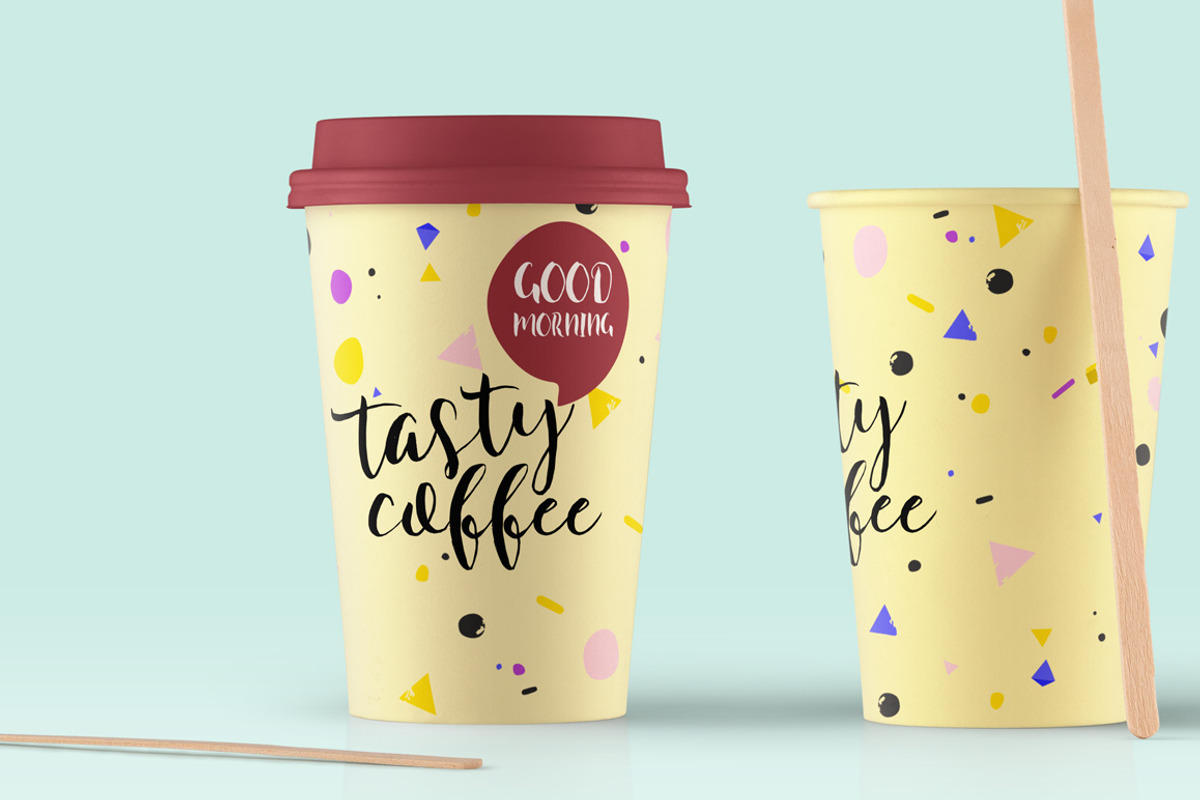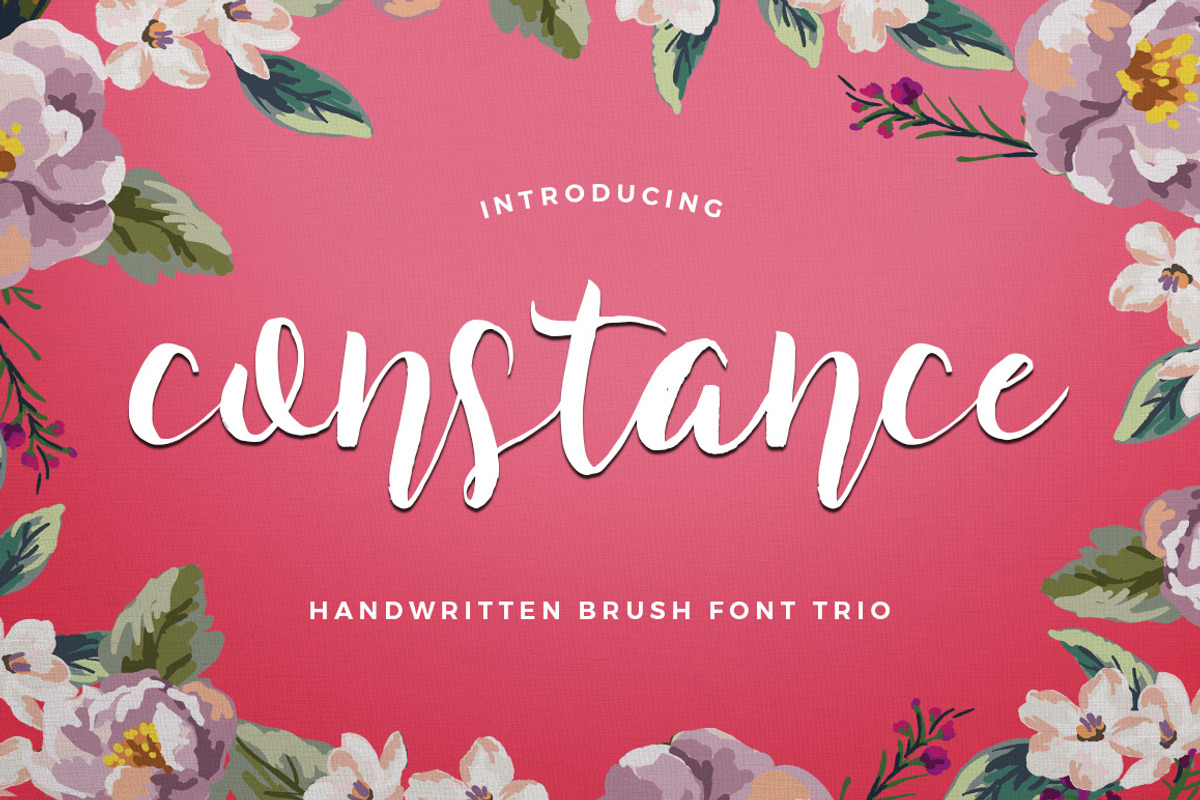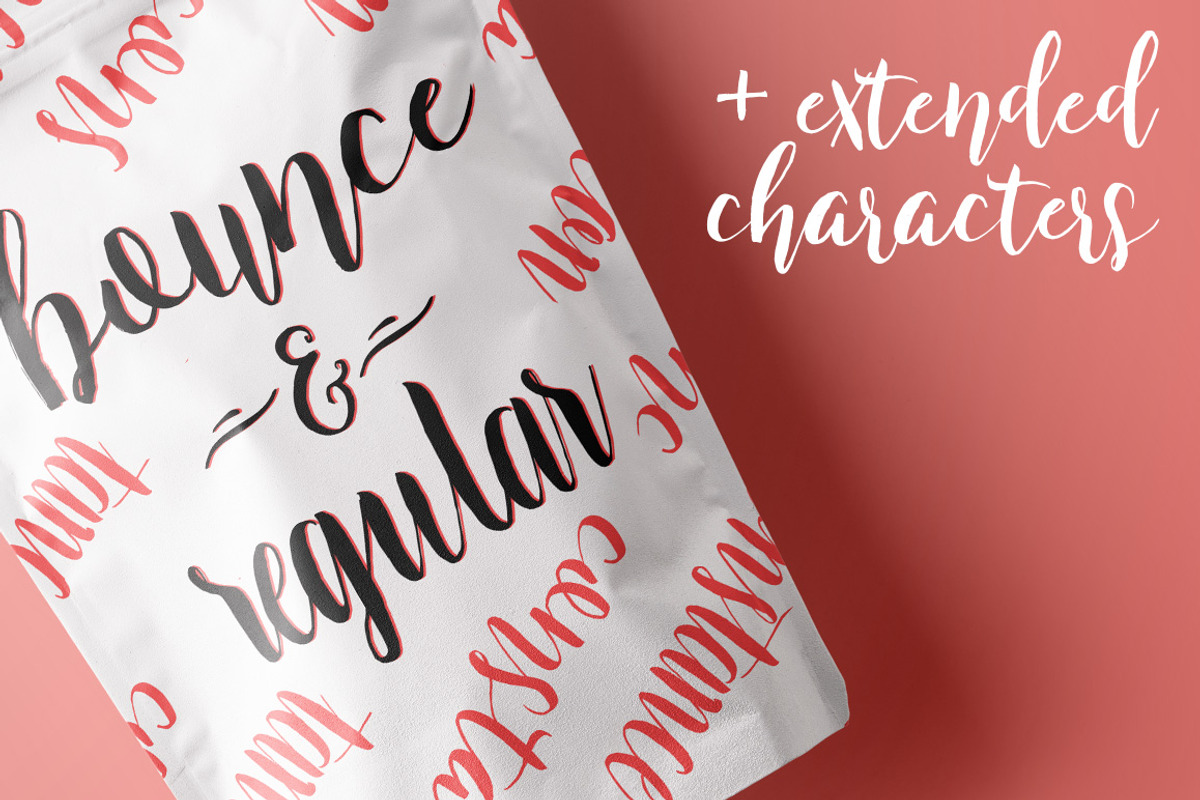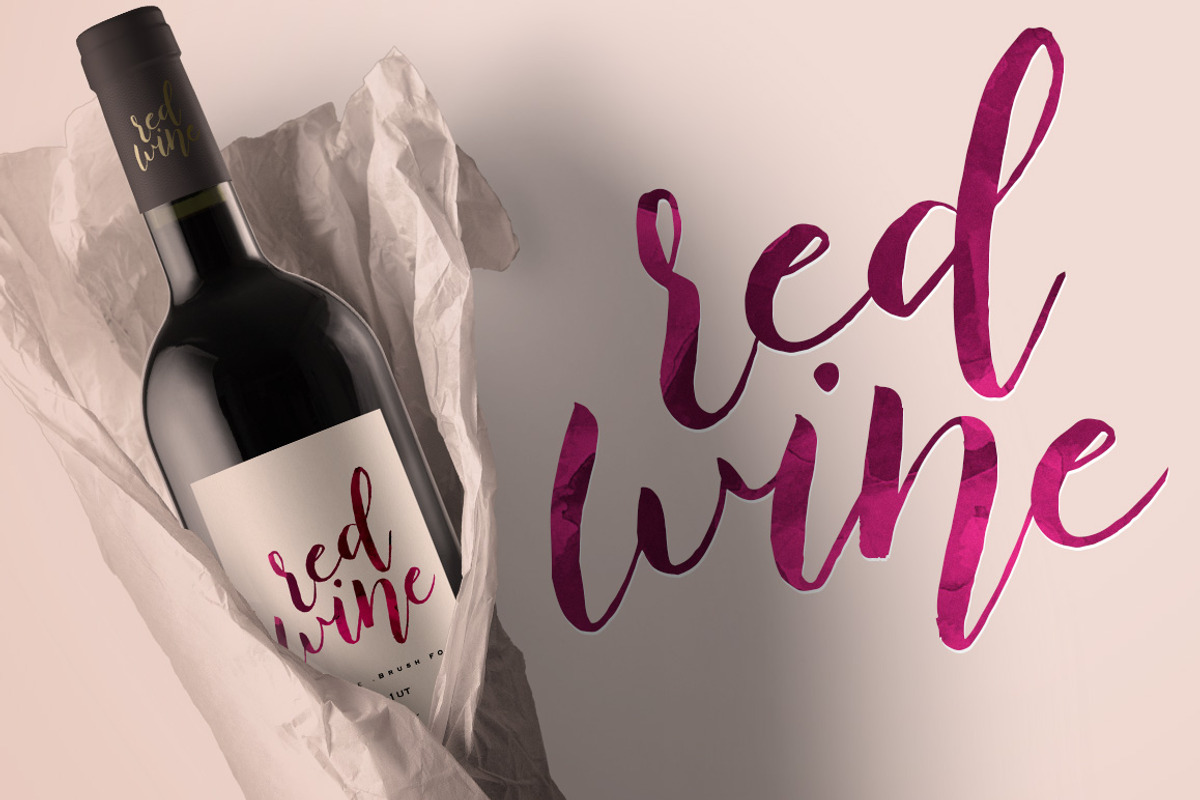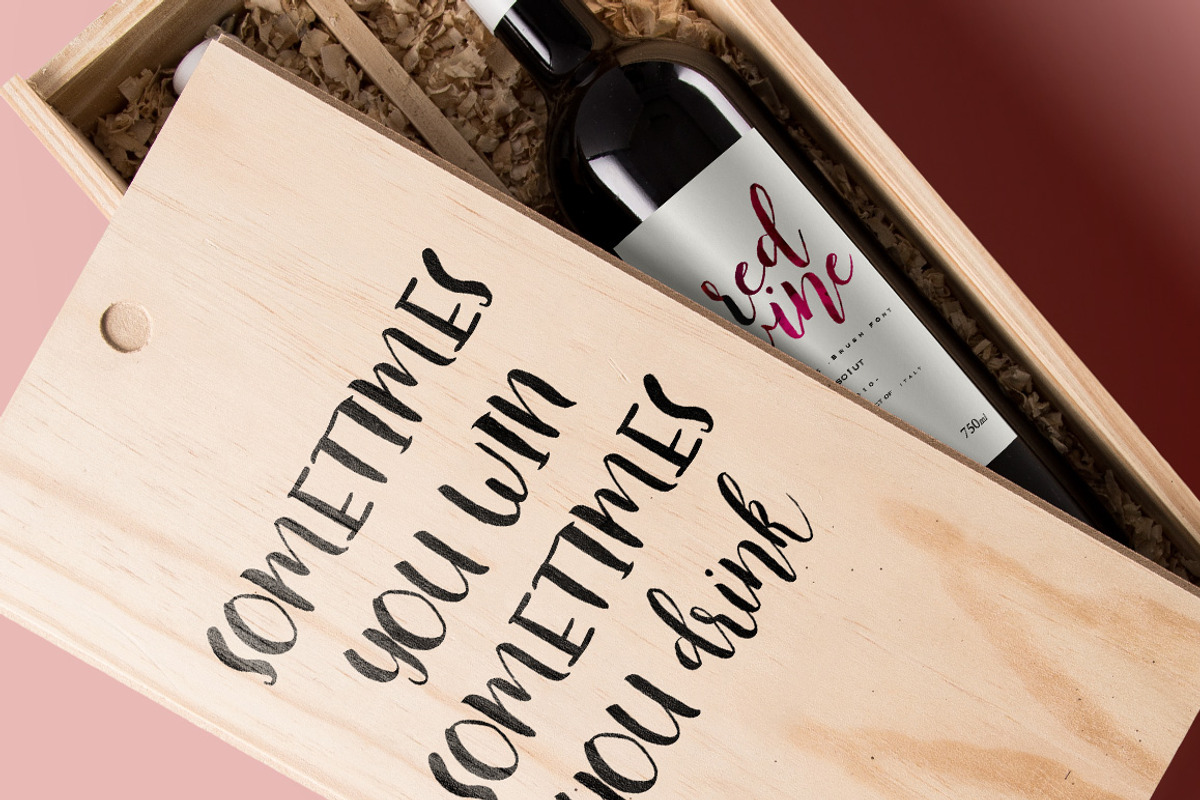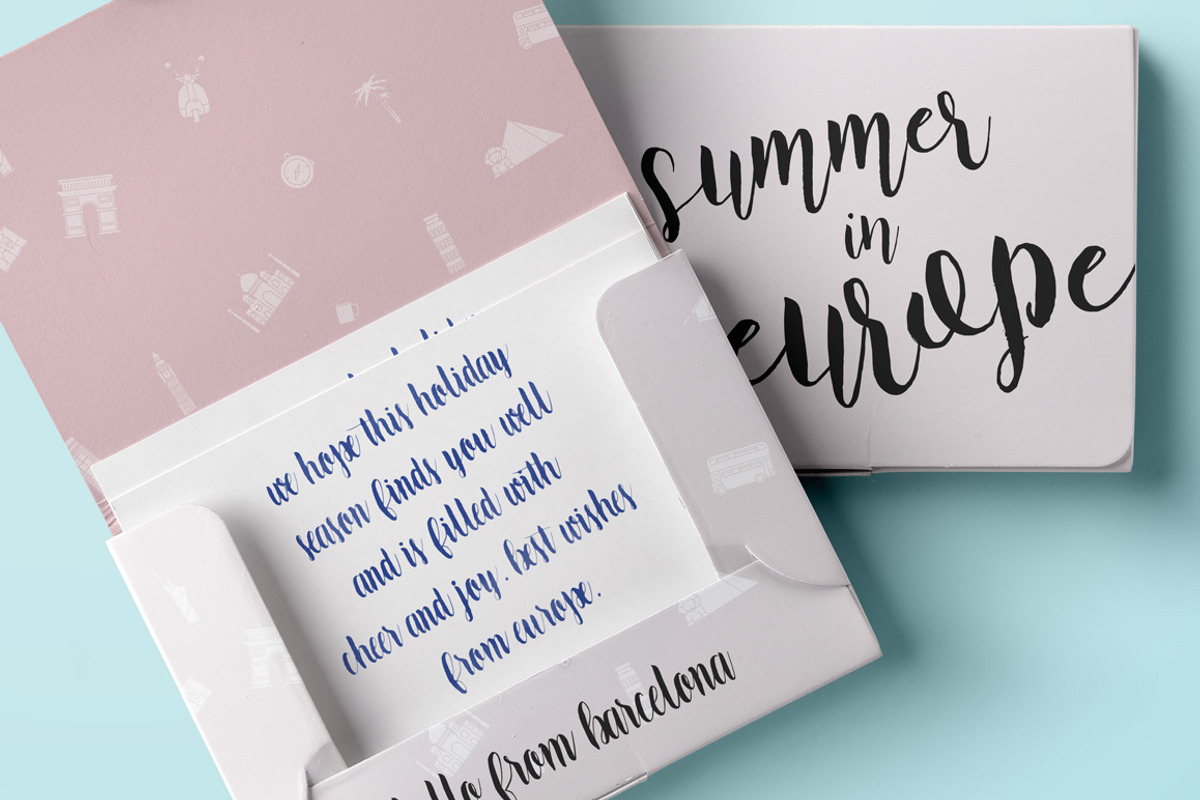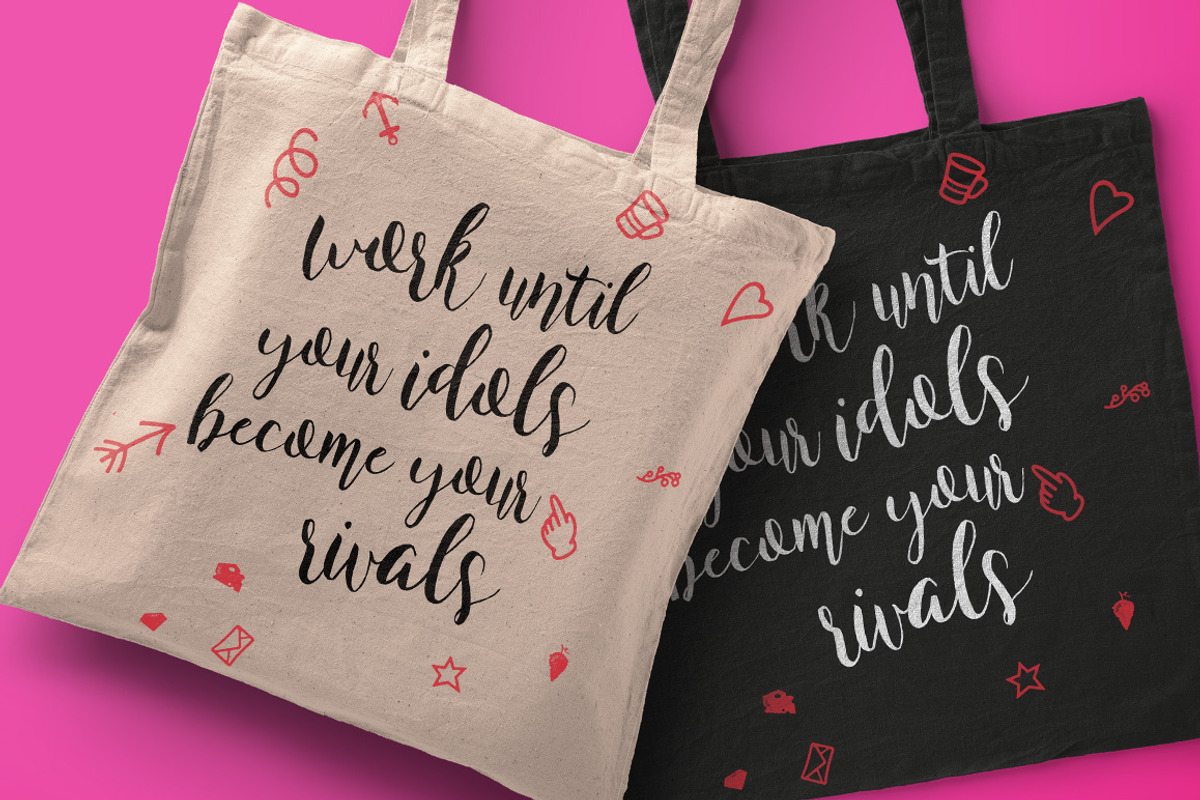
Constance Brush Font Trio
Constance Brush Font Trio by Ivan Rosenberg is a font selected for branding, posters, packaging, typography.
- It contains a set of lower (Constance01,Constance02) uppercase letters (Constance03), numerals and multilingual support.
- Constance Brush Font Trio is a hand brushed font with multilingual support.
Why Constance Brush Font Trio is worth a look
Constance Brush Font Trio by Ivan Rosenberg fits naturally into Branding, posters, packaging, typography.